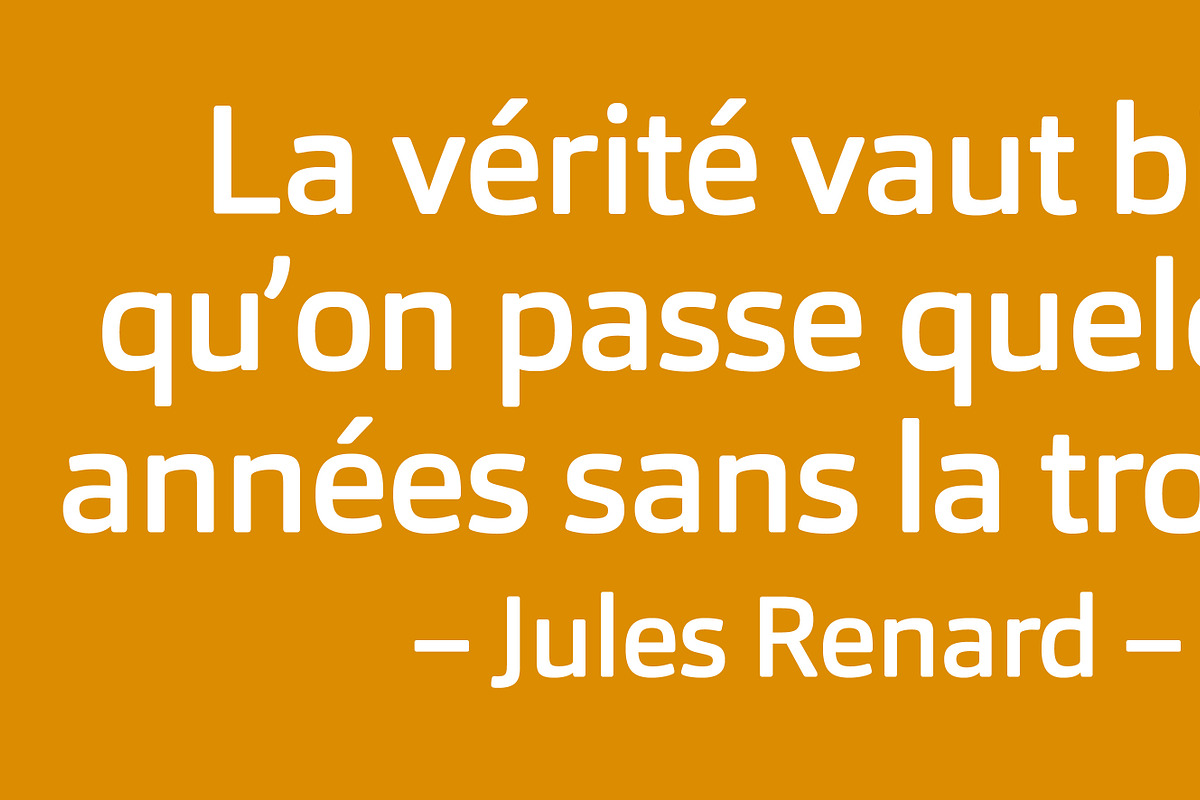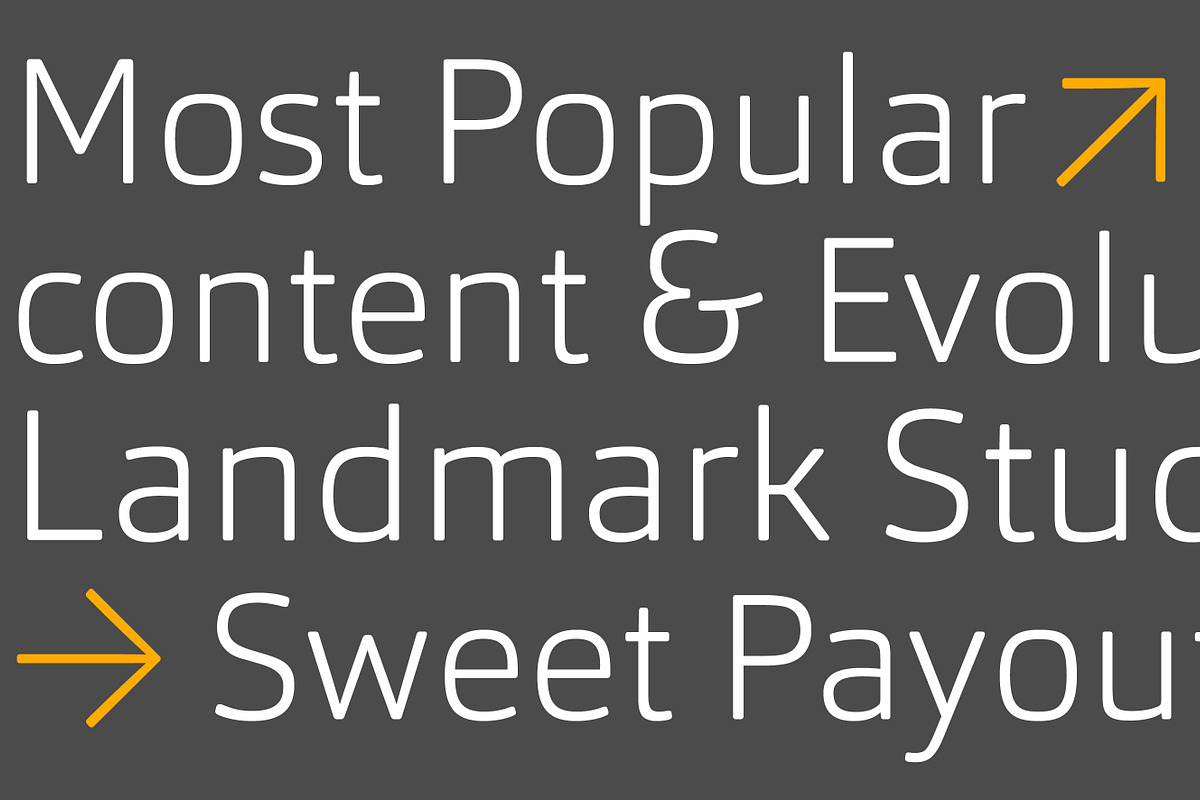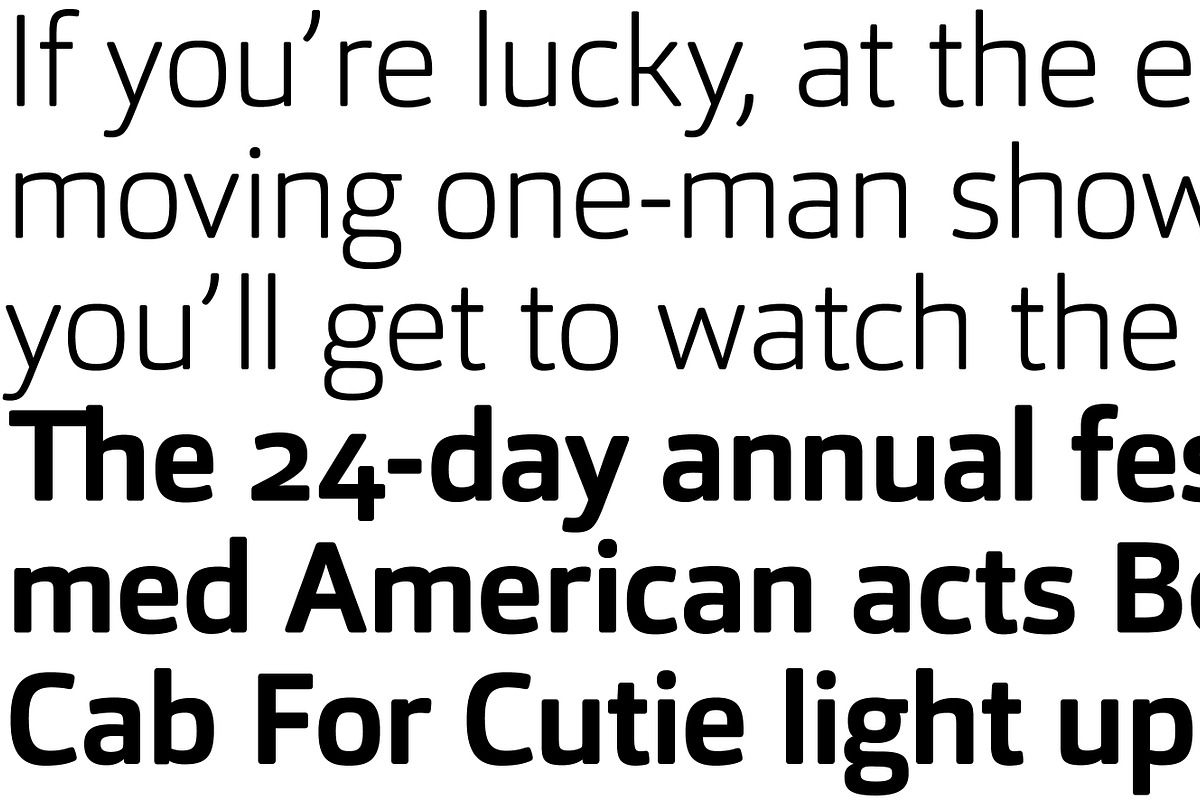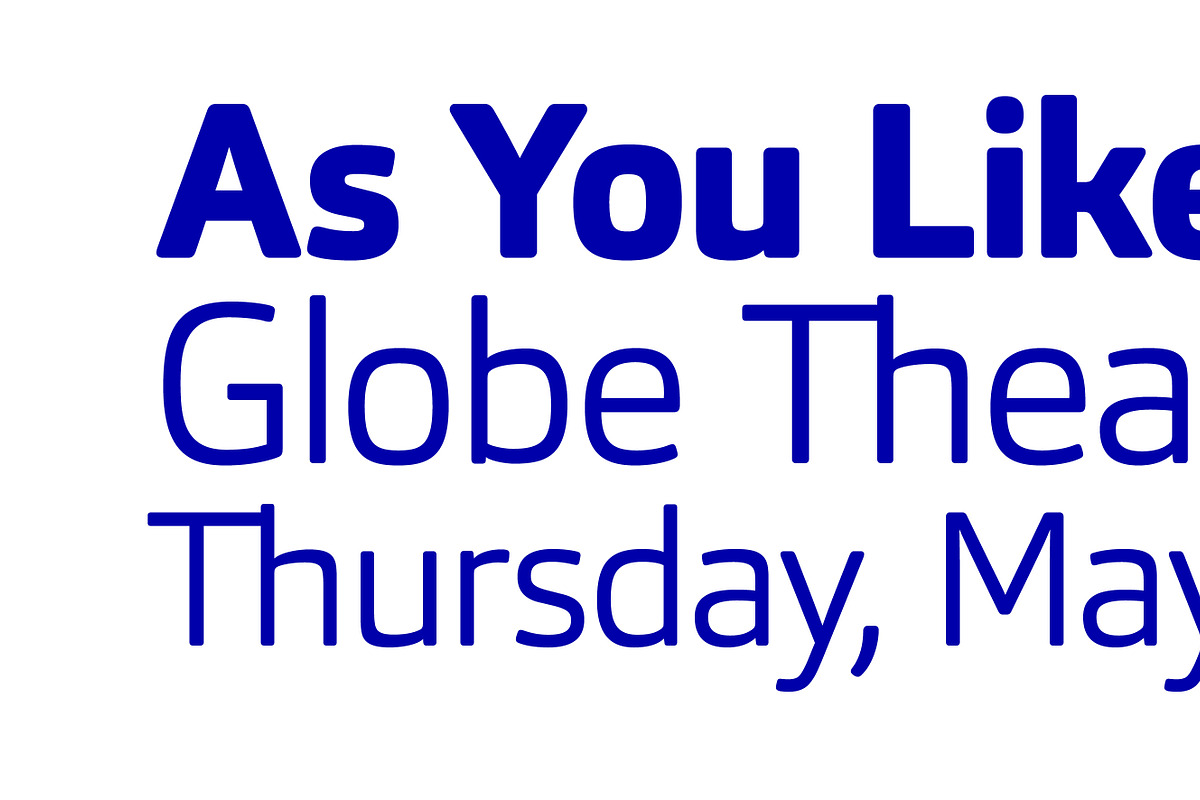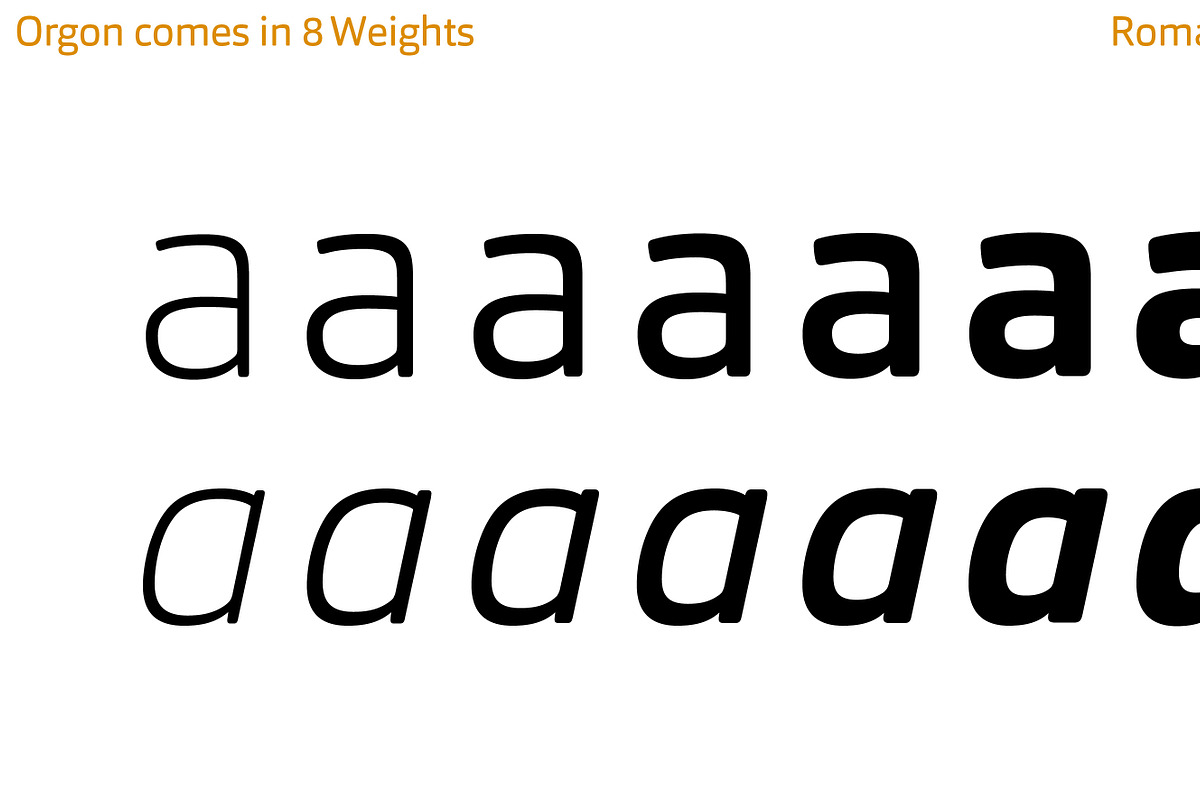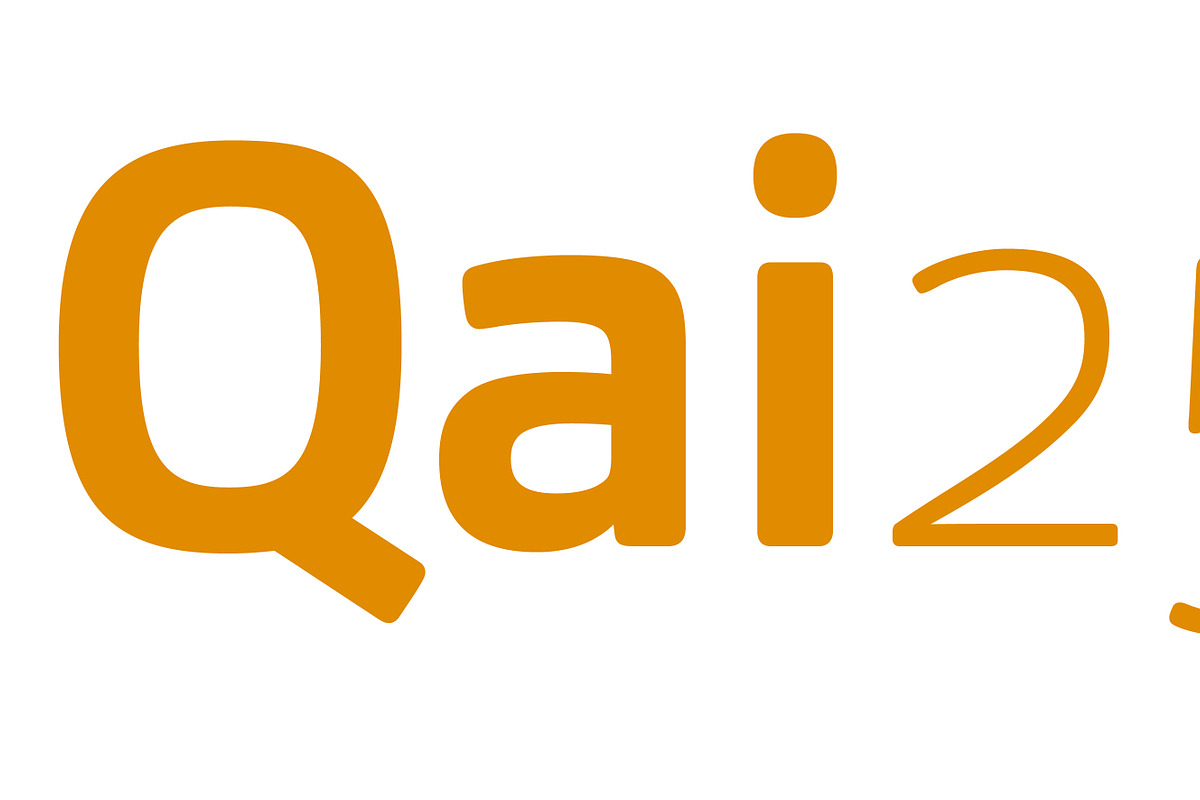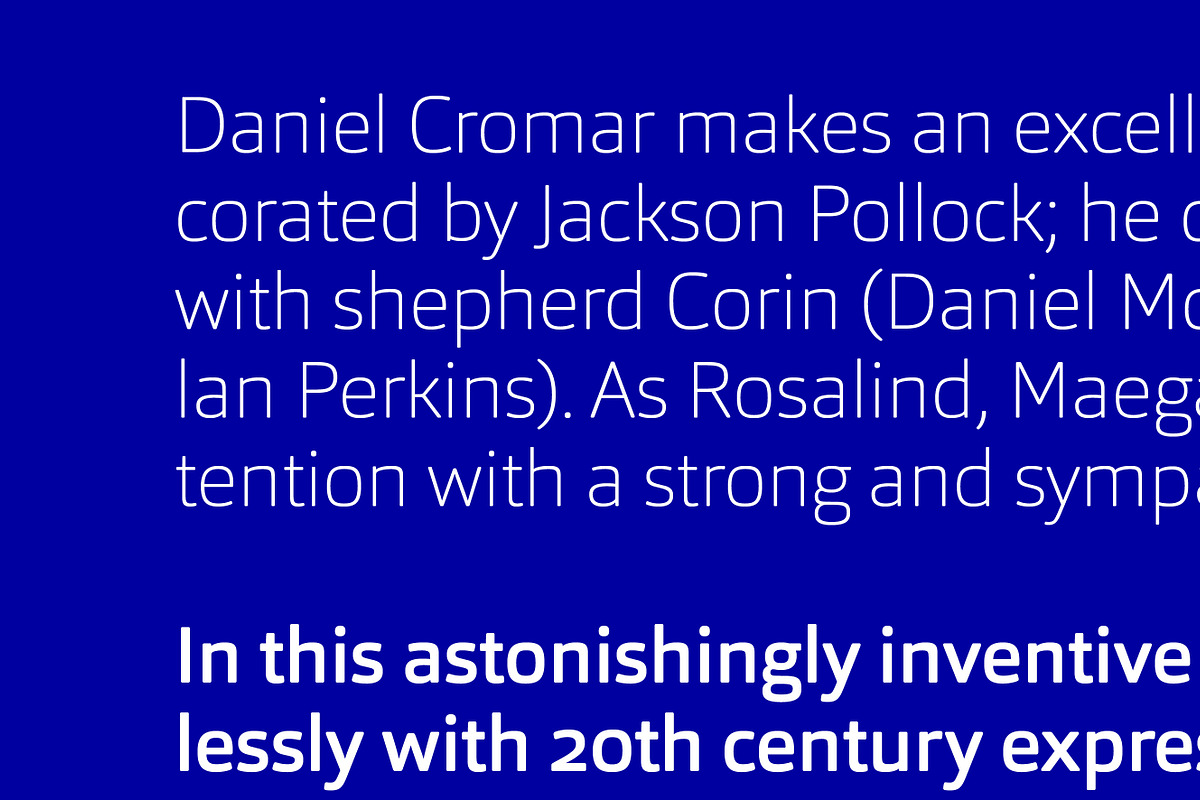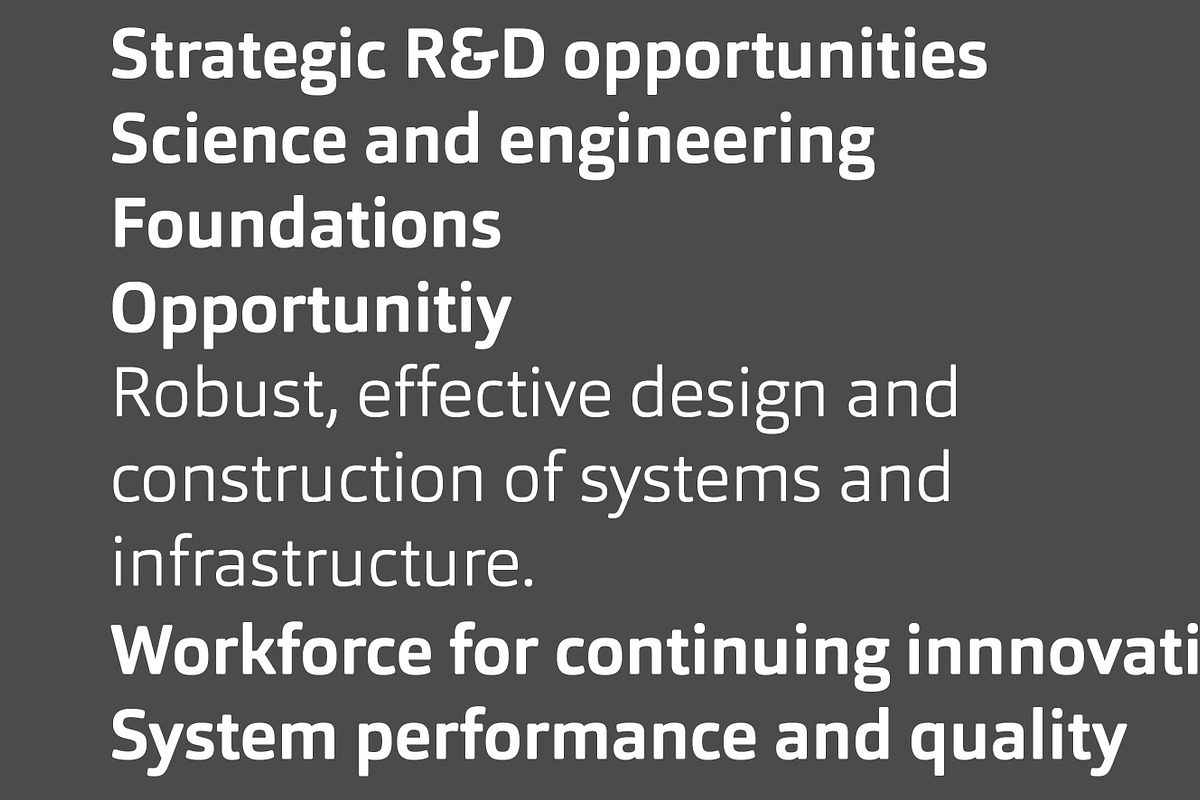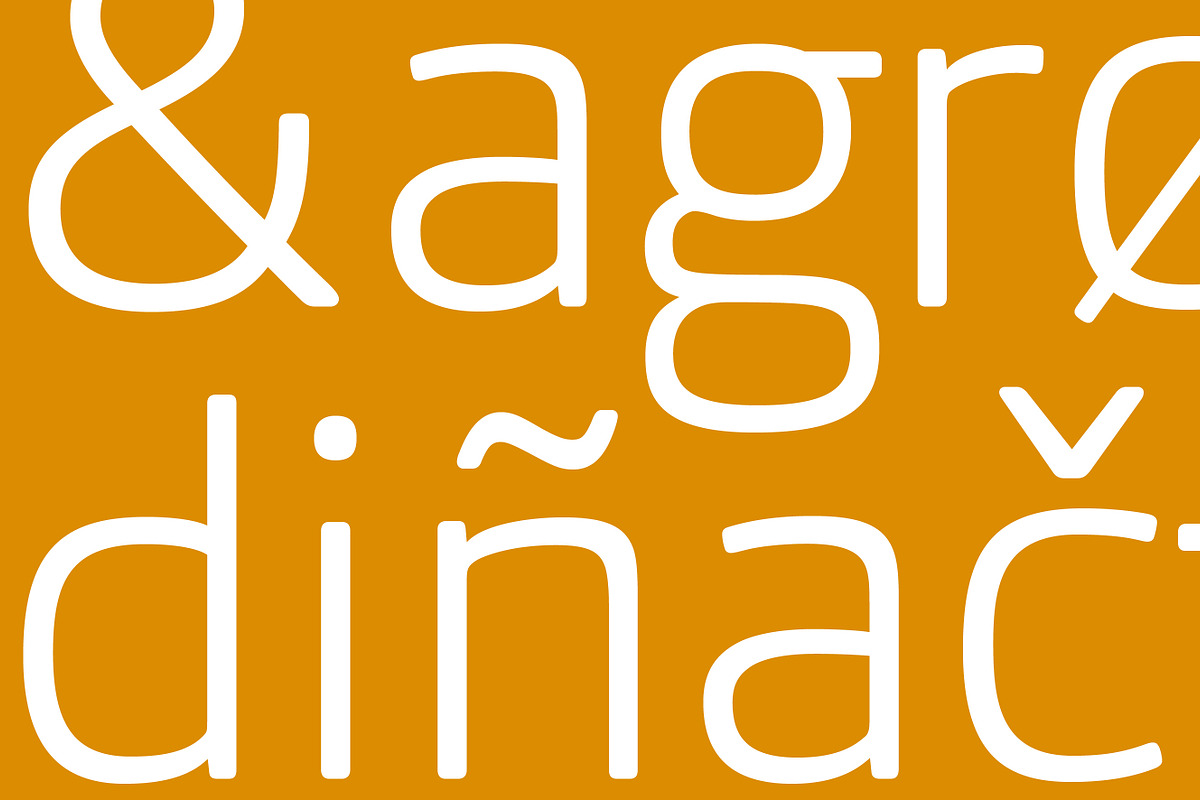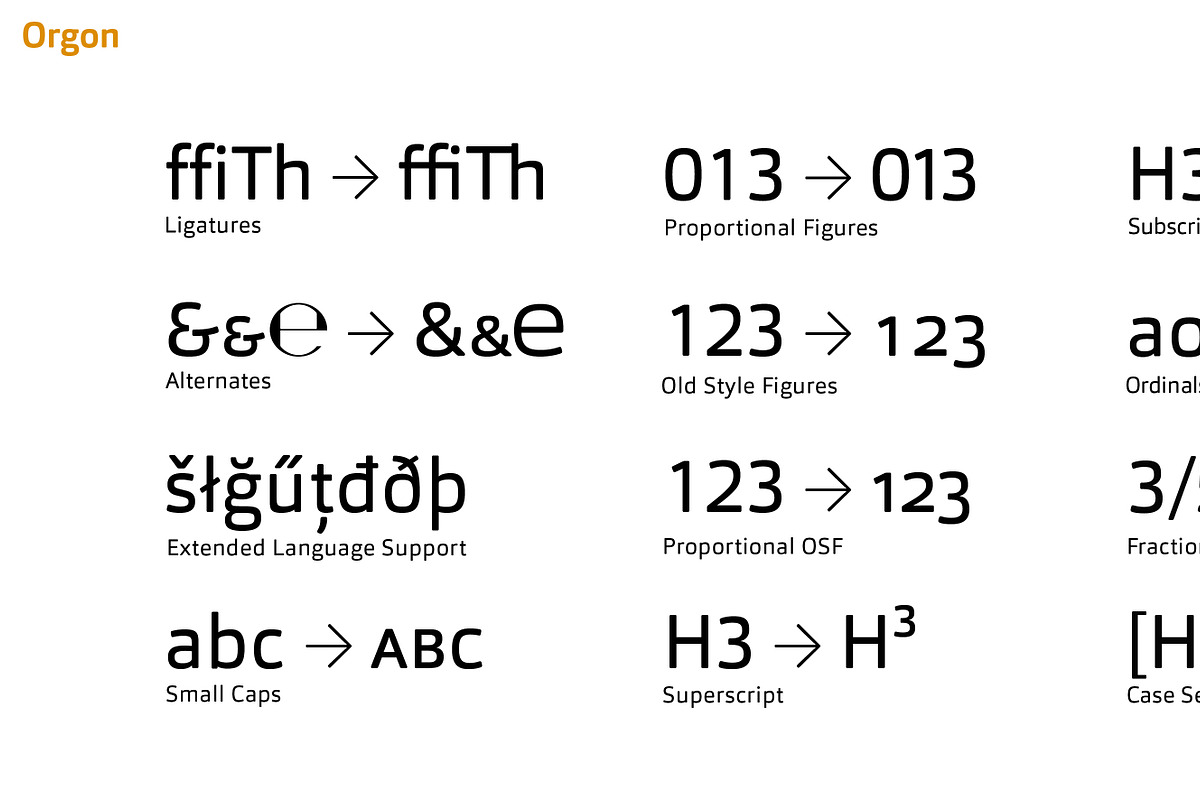
Orgon
Orgon is a neo-humanist sans serif typeface designed for readability. Its 'quiet text flow' makes it suitable for long passages of text. The font family includes 16 styles and offers extensive OpenType features such as ligatures, small caps, various numeral styles, and currency symbols.